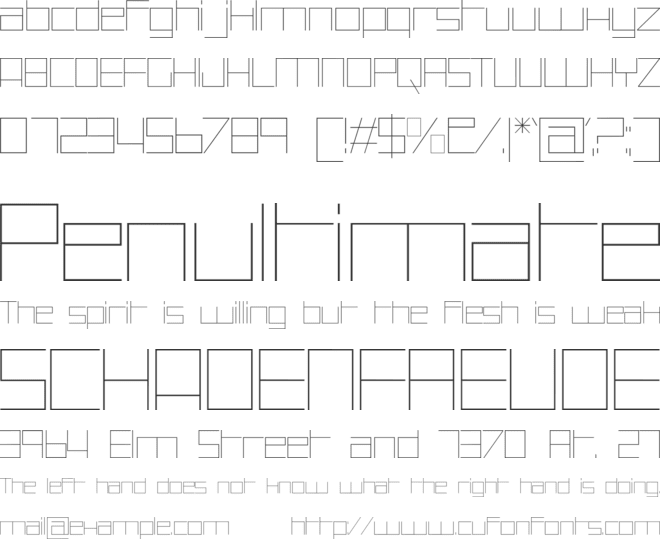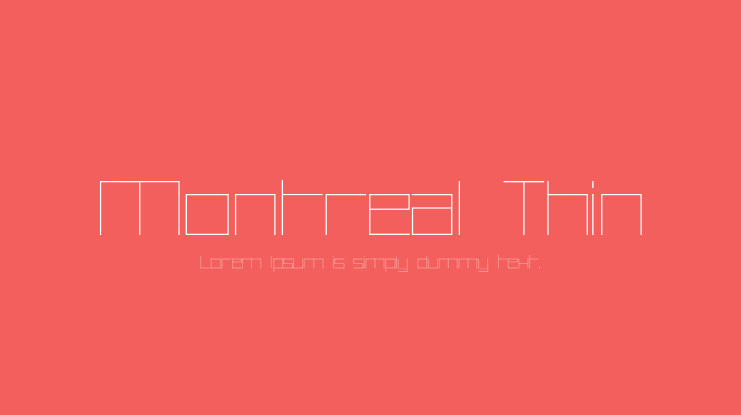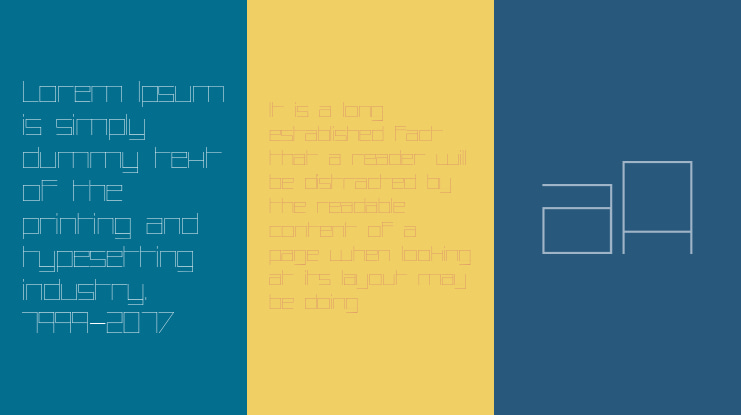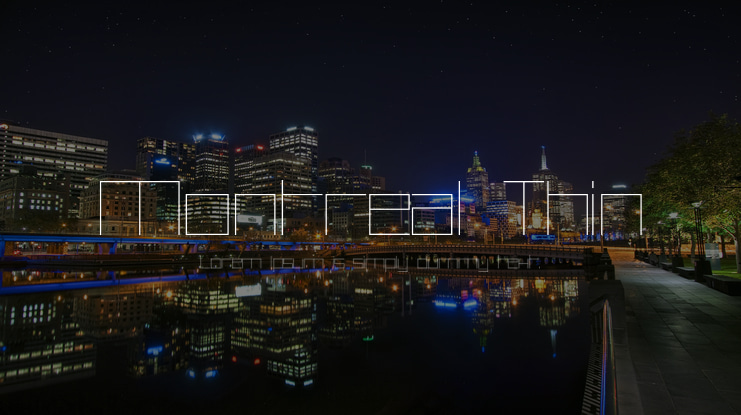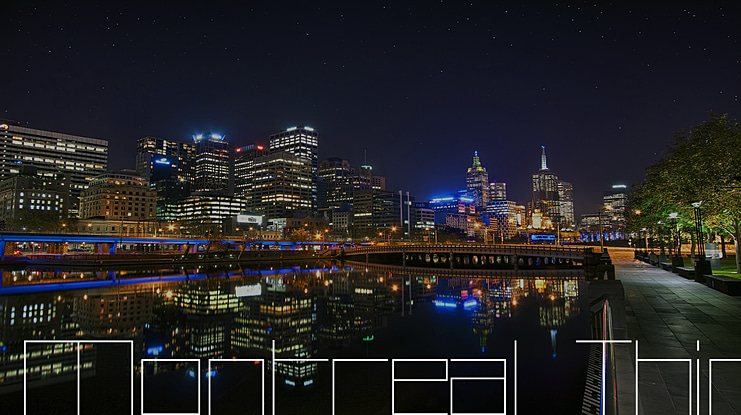
Montreal Thin Font Family
Directly from the film directed by John Brahm, starring an unforgettable AVA GARDNER, the new font for all admirers of the film.
Direttamente dal film diretto da John Brahm, interpretato da una indimenticabile AVA GARDNER, il font inedito per tutti gli estimatori del film.